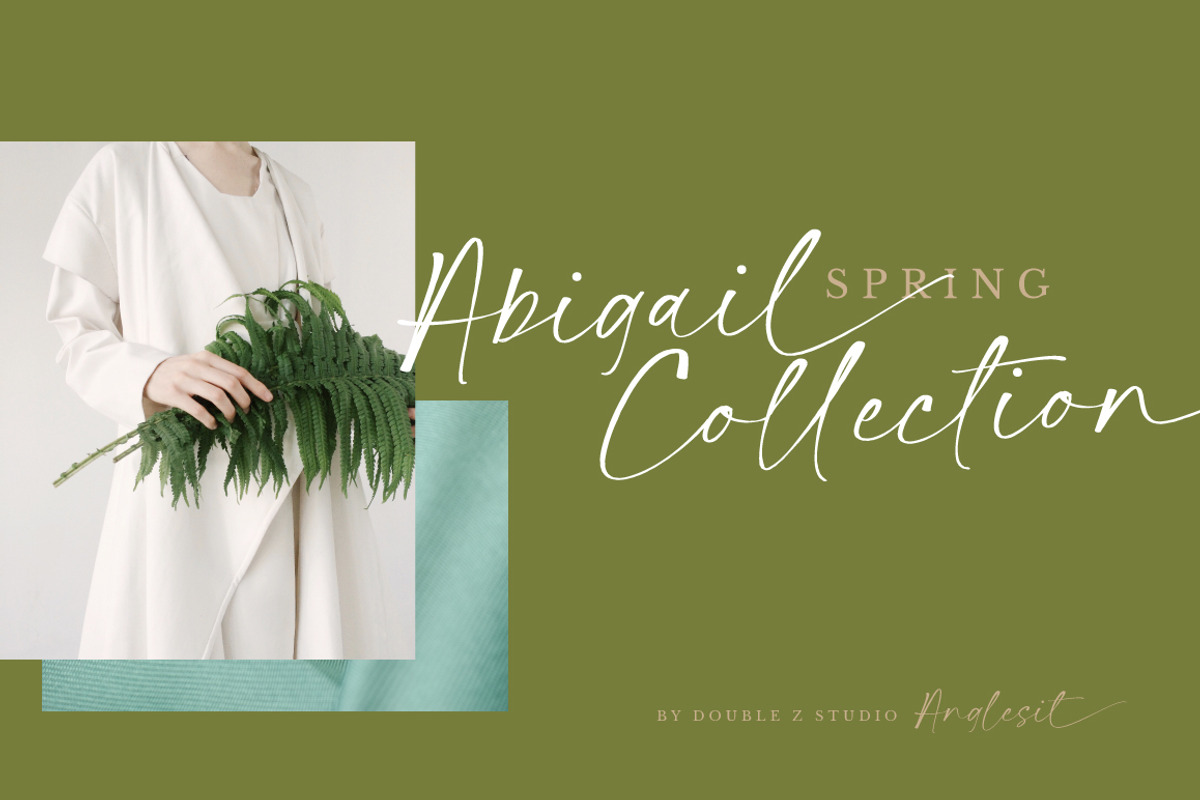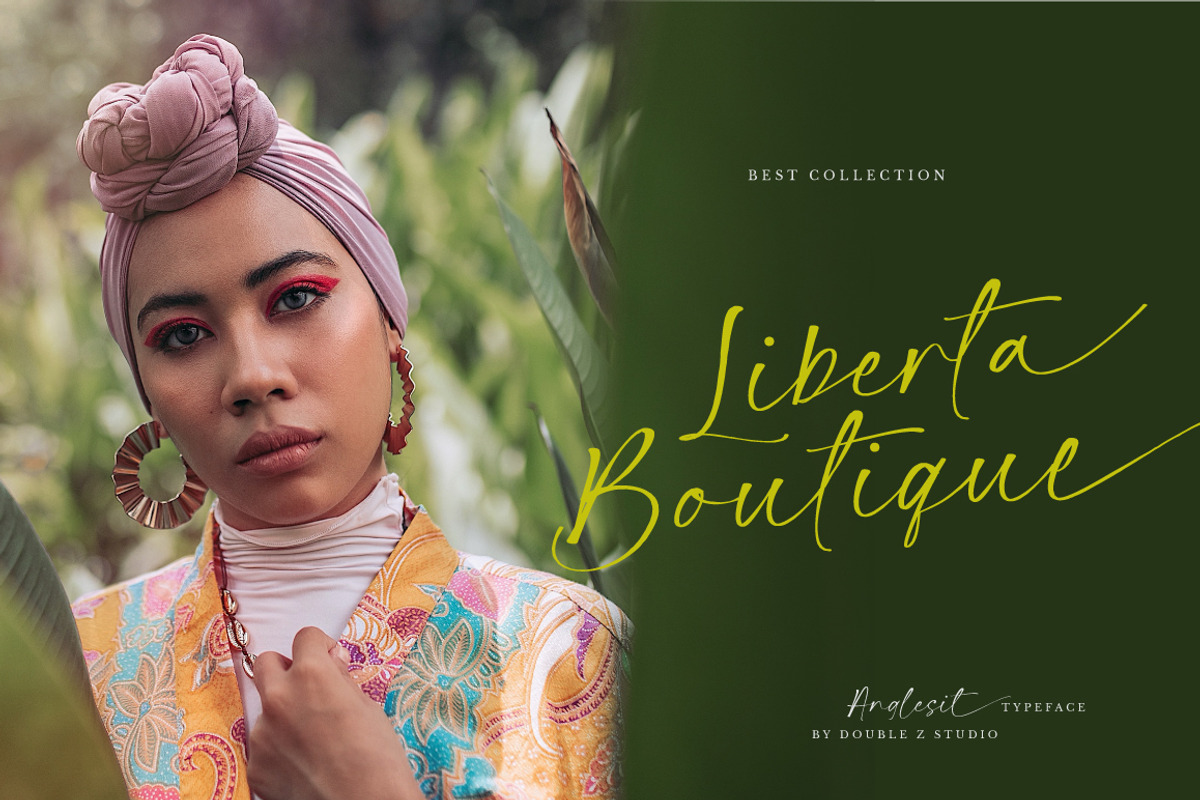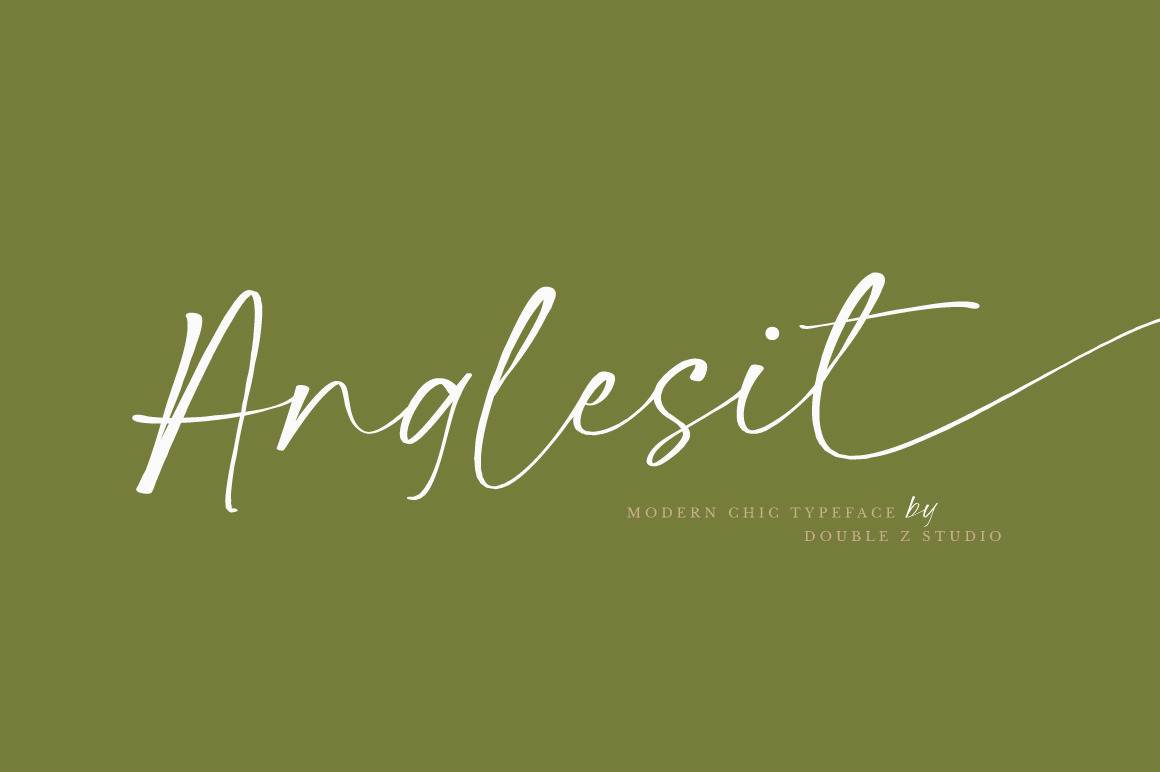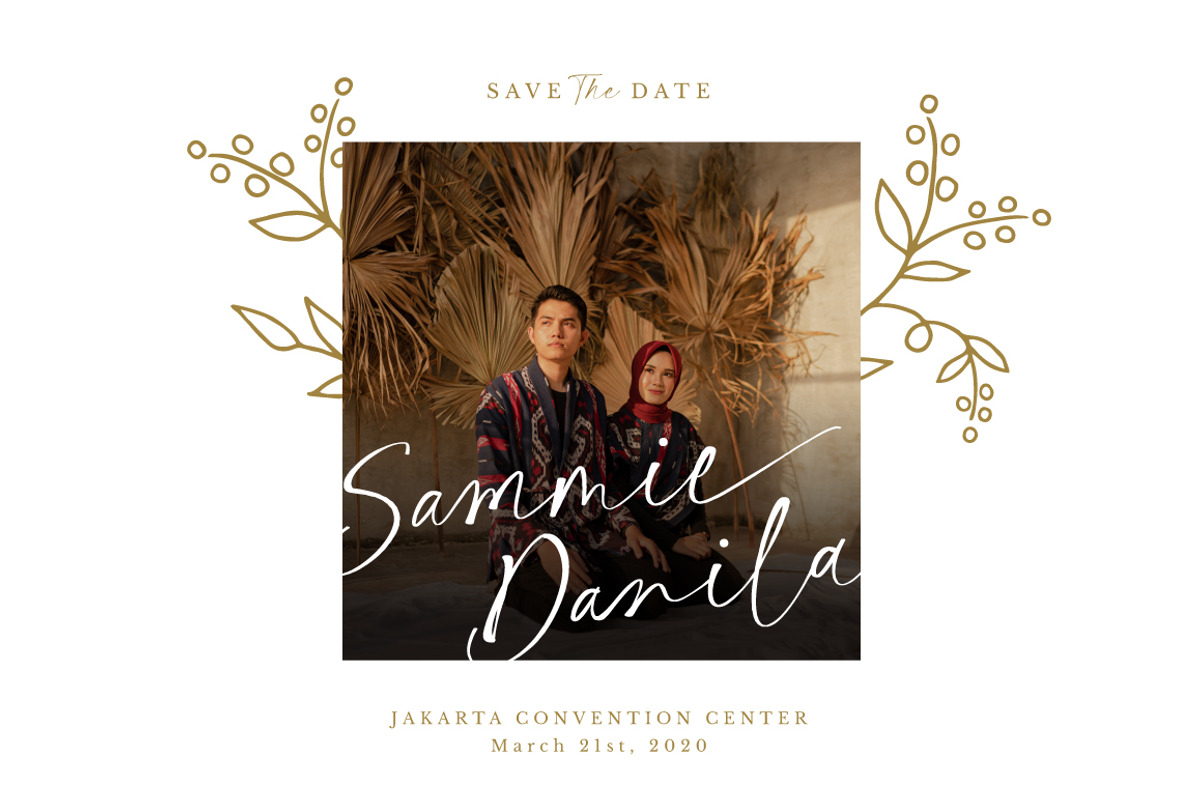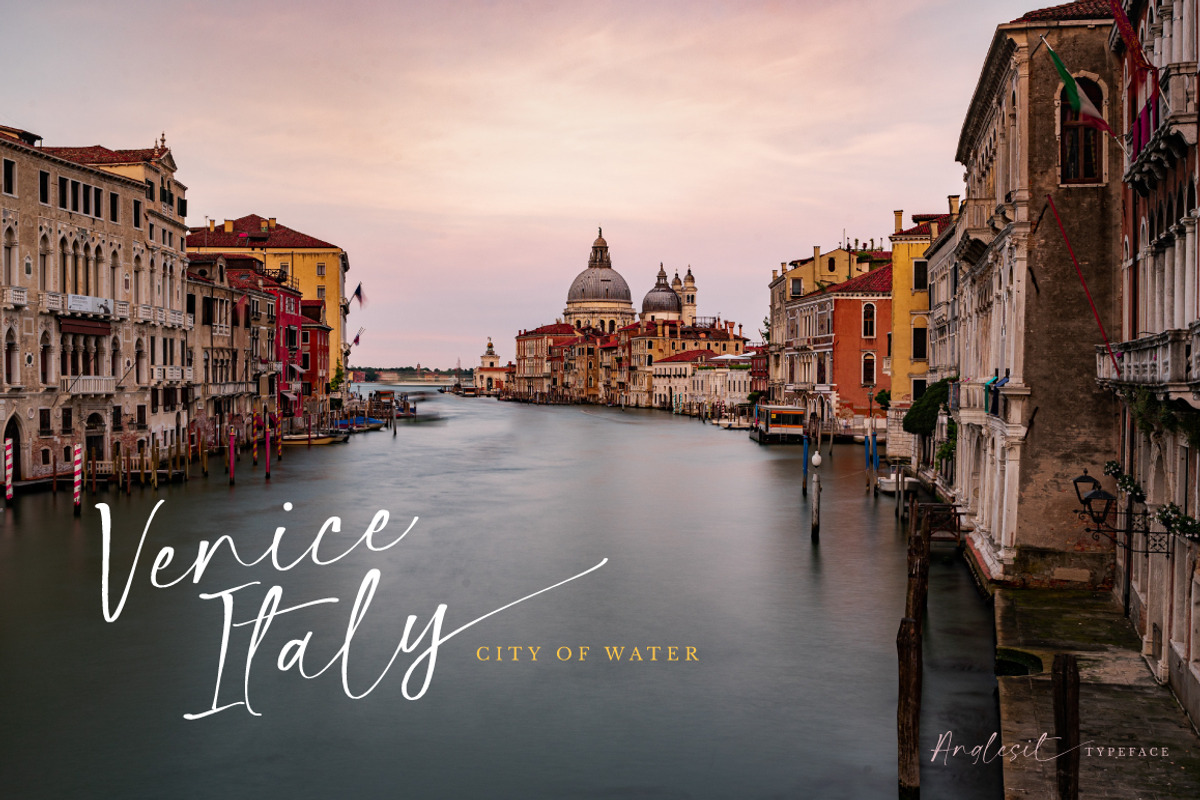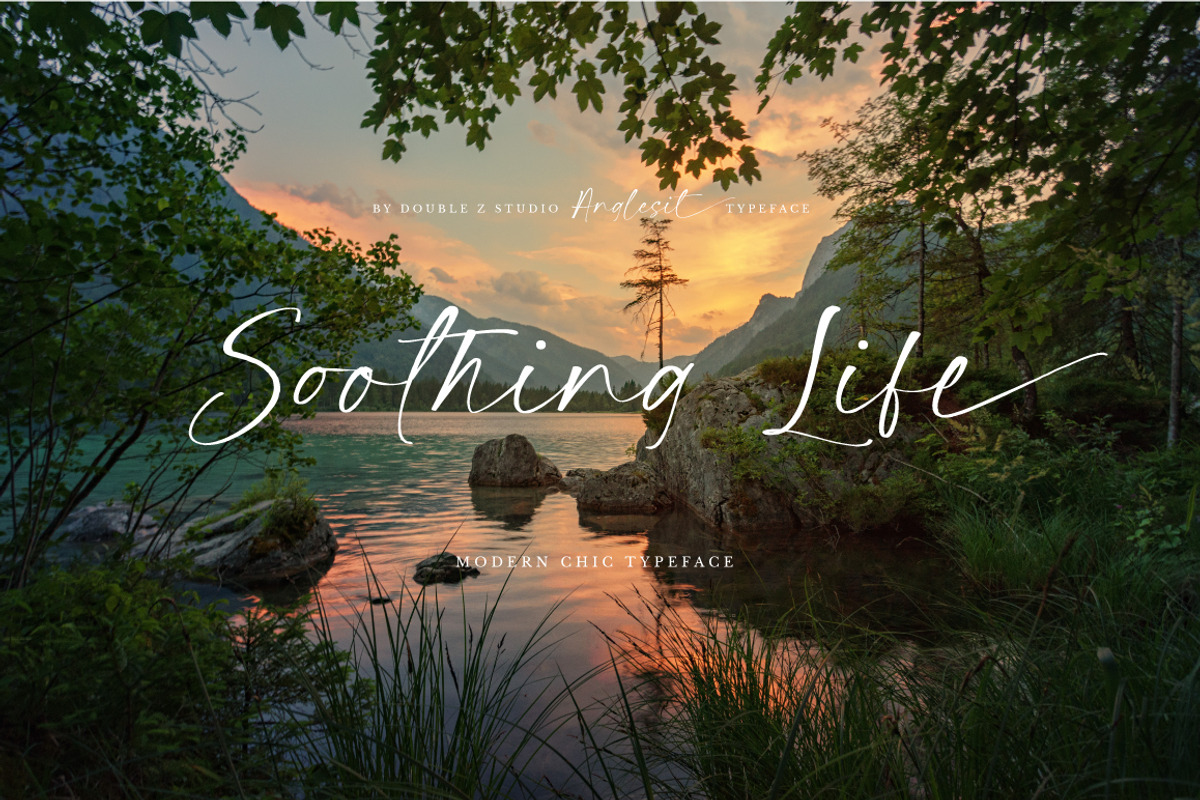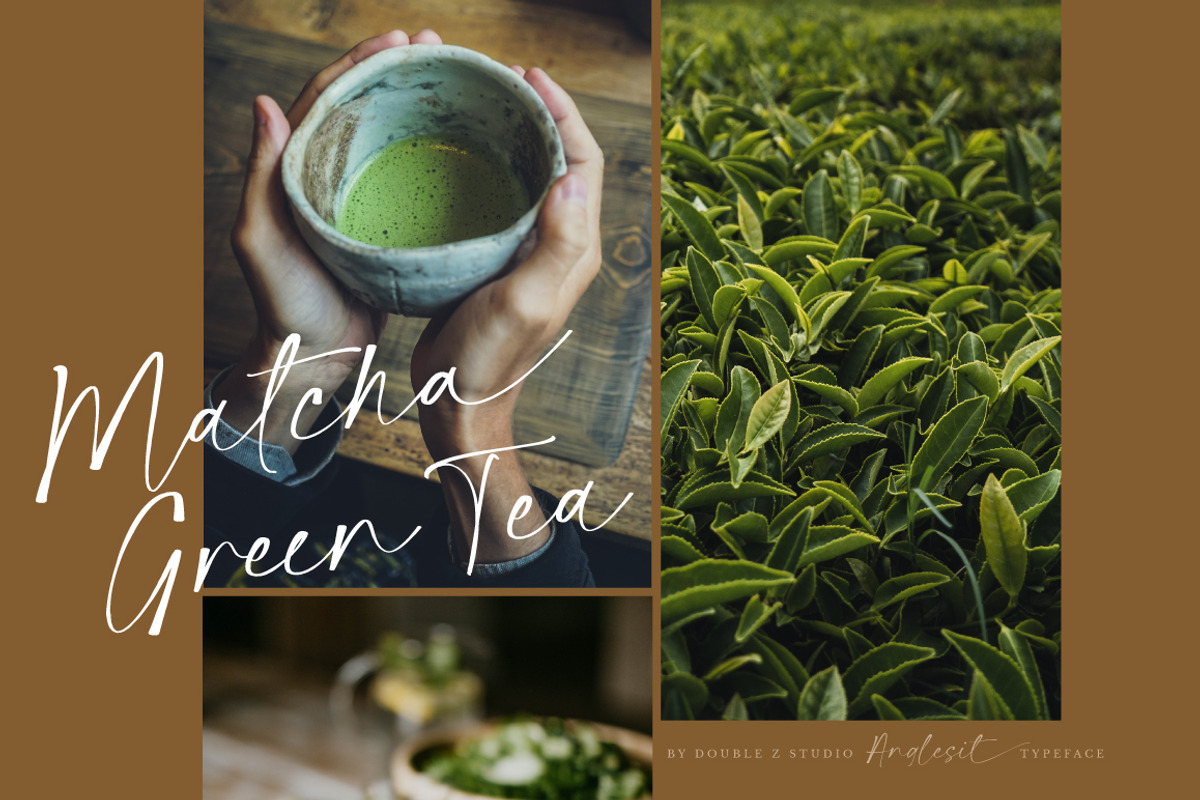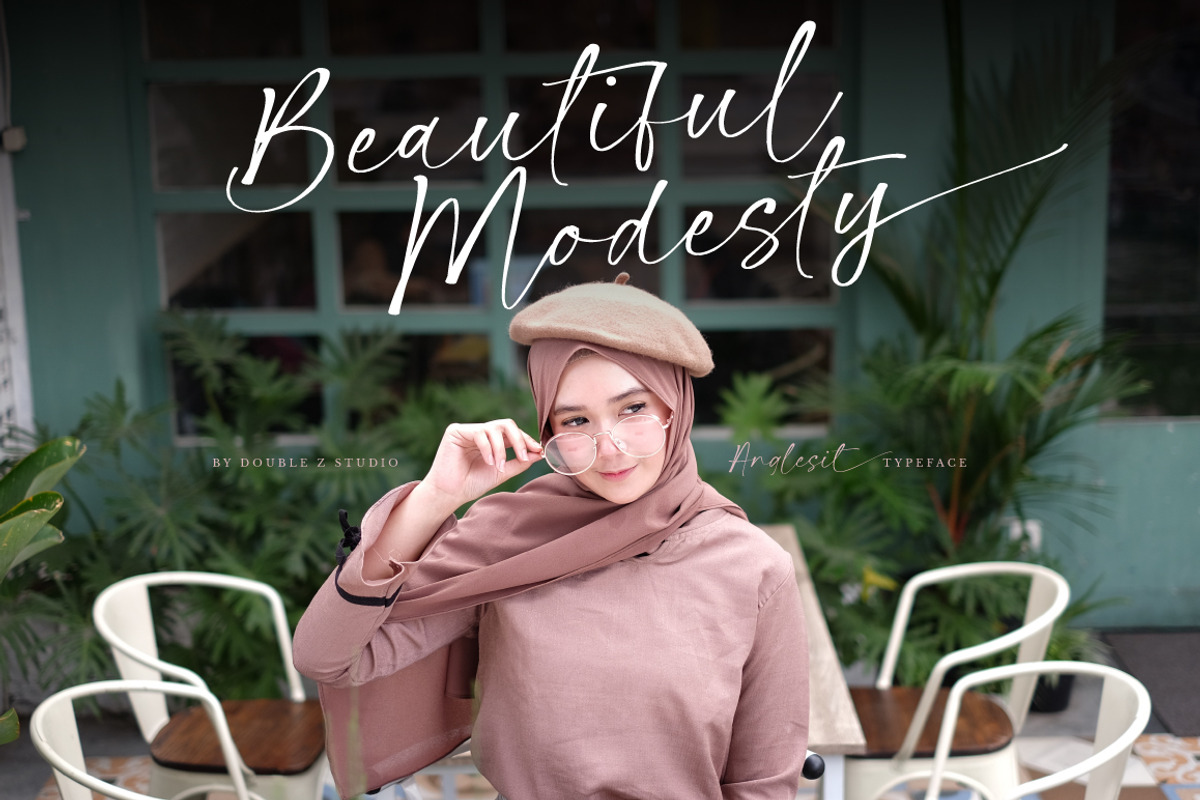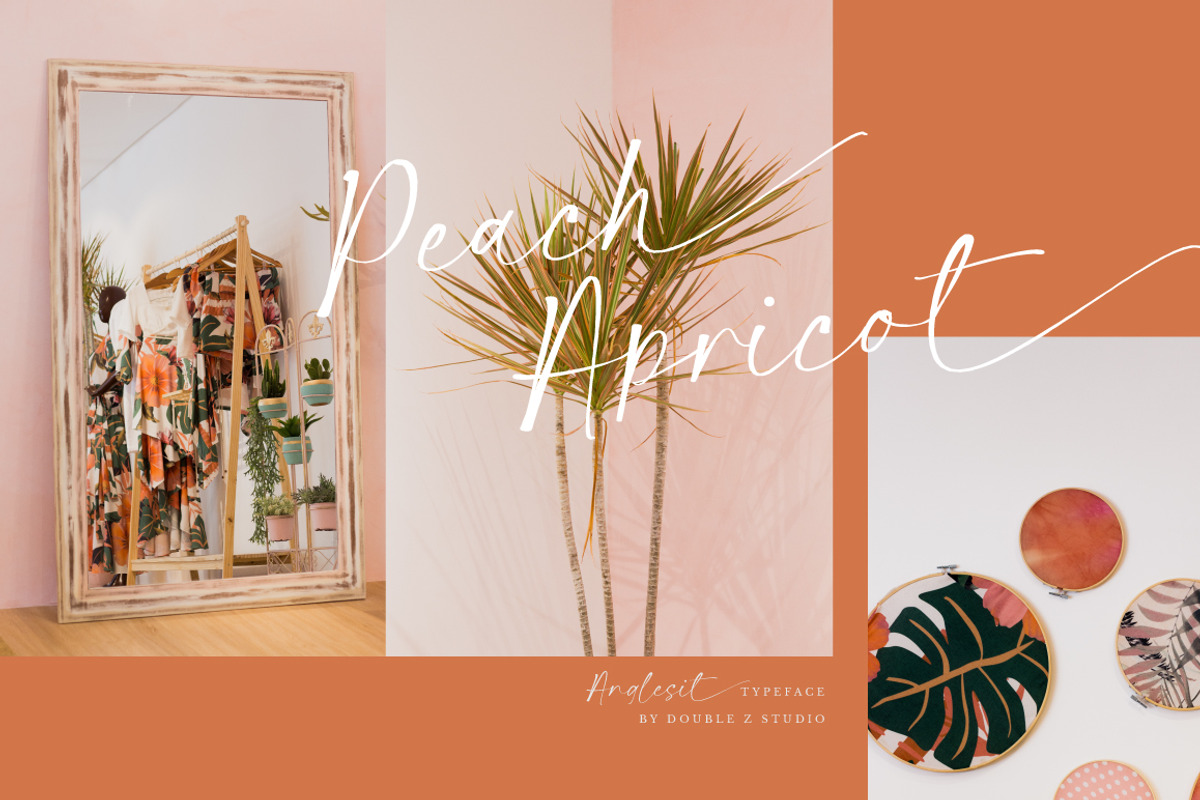
Anglesit - Modern Casual Chic Font
Introducing Anglesit. Carefully crafted. It is a chic, beautiful, modern and elegant script. Smoothly flowing, perfect for designing blog logo, website logo, print ads, book covers, film covers, apparel, cards, logos, posters, etc.
Opentype features gives you more alternatives in designing.